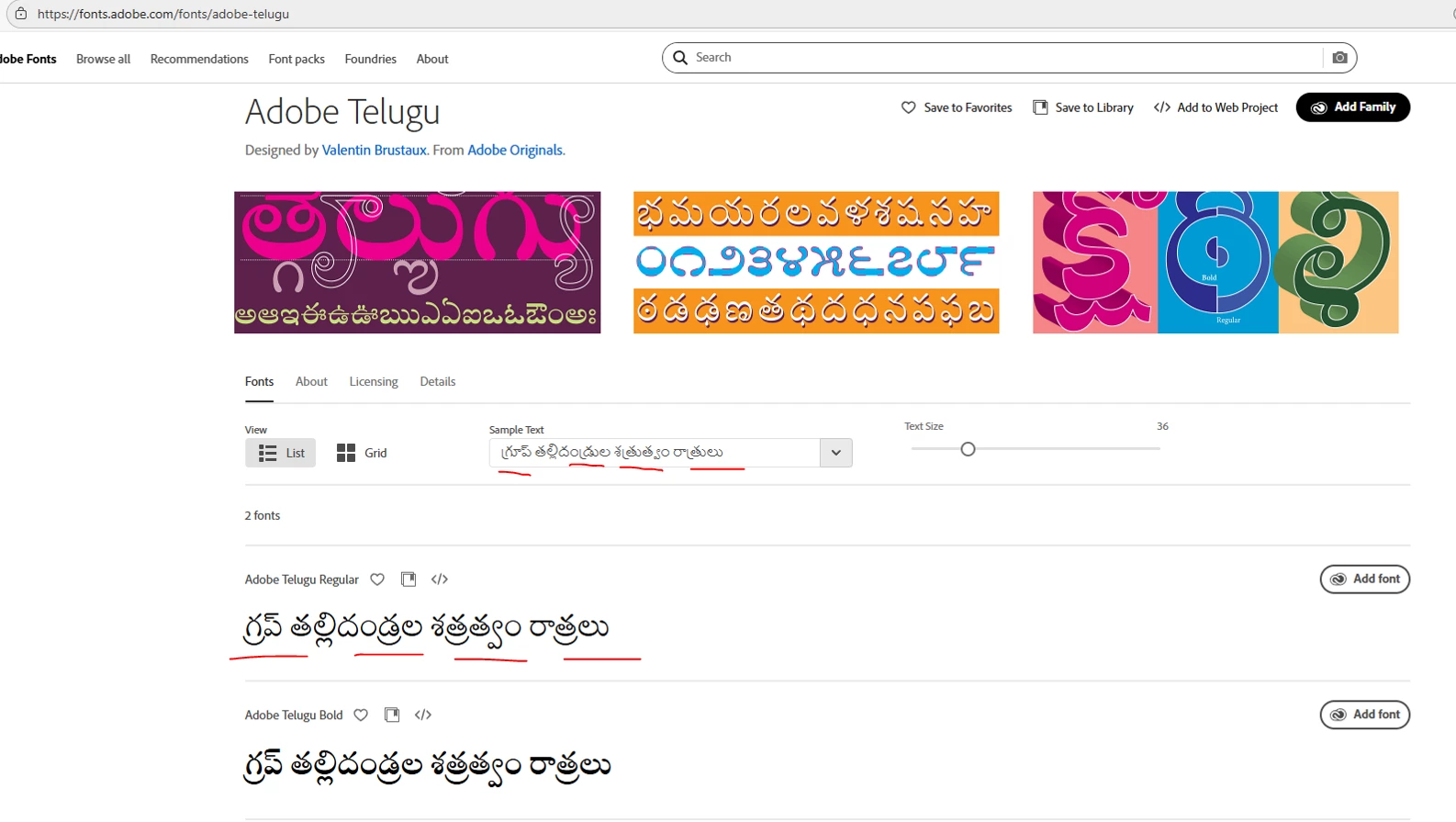
Adobe Telugu Font Issue in Indesign and word file
Plz check the screenshot below
Some telugu letters not displaying properly in adobe telugu font highlighted in red colour.
Plz... Let me know any solution  for correcting this automatically
Are you saying it does not display correctly when used in InDesign? Or in the web page of fonts.adobe.com?
Both in InDesign as well as in the web page of fonts. adobe.com.
In preview mode the characters are showing correctly but in Telugu font preview characters missing. For example, see below screenshots.
డ్రు The side curve is missing
Thanks for sharing the details. Could you try switching to the Adobe World-Ready Paragraph composer in the Advanced Type Preferences and let us know if it helps?